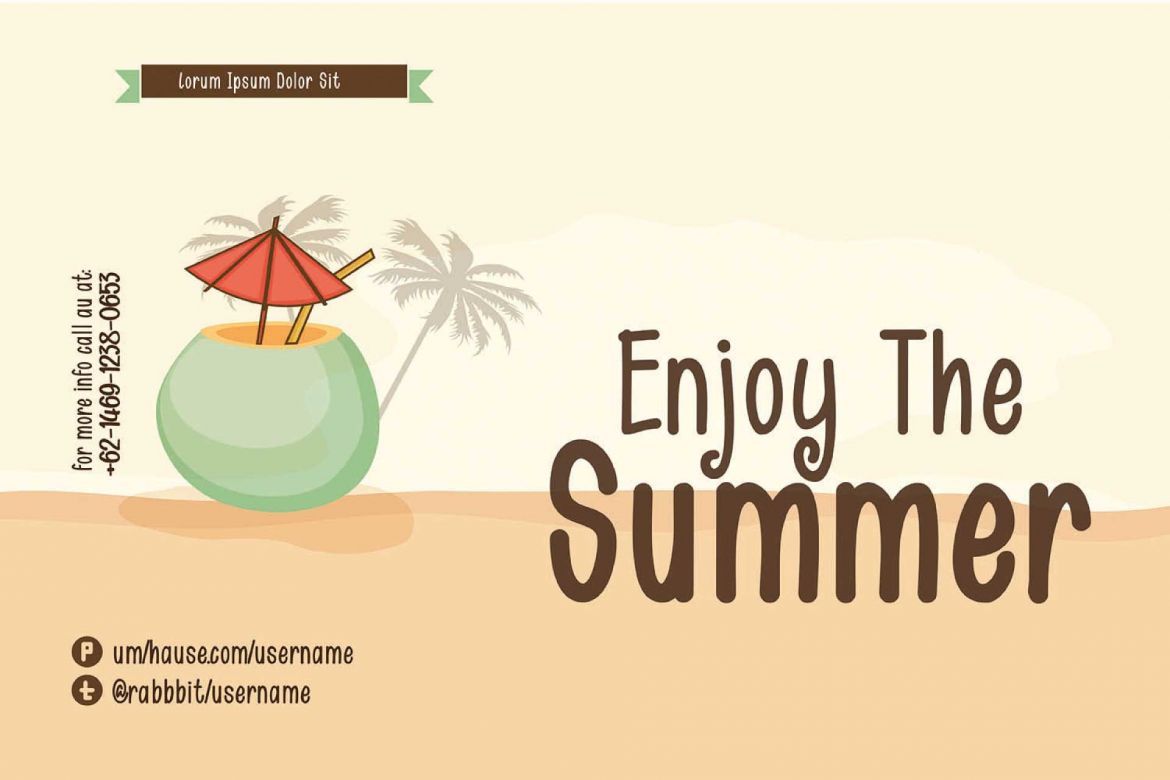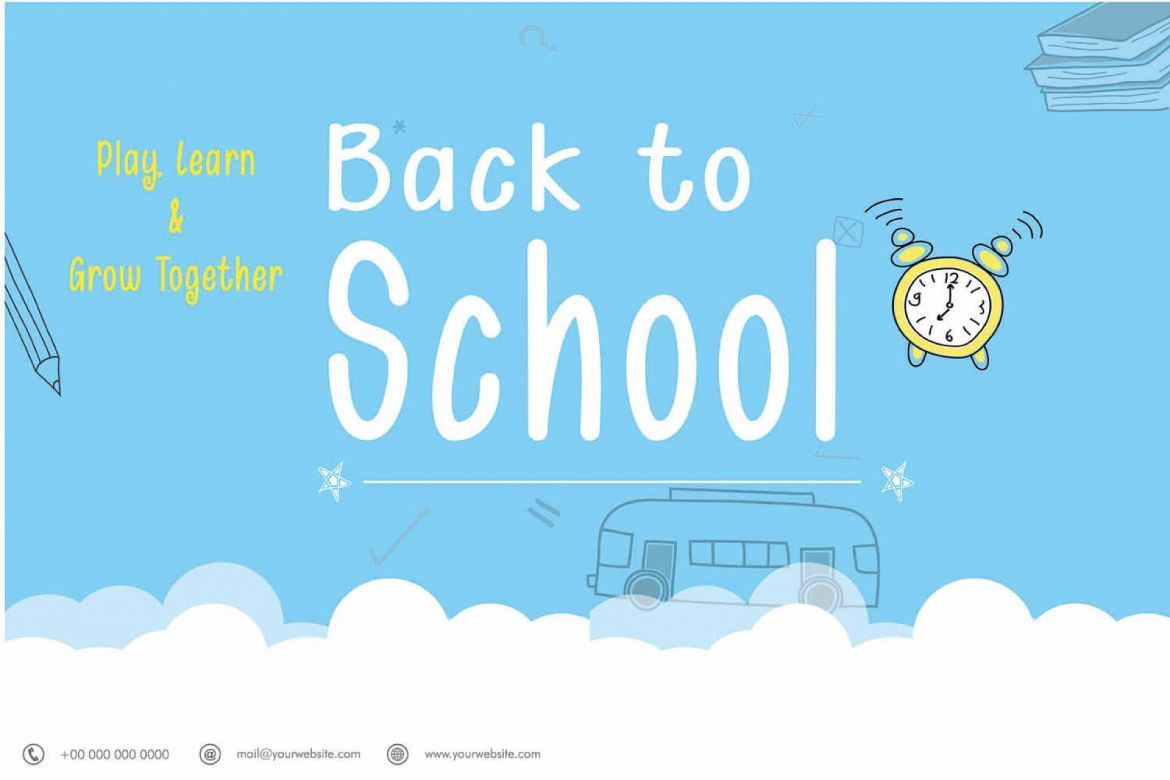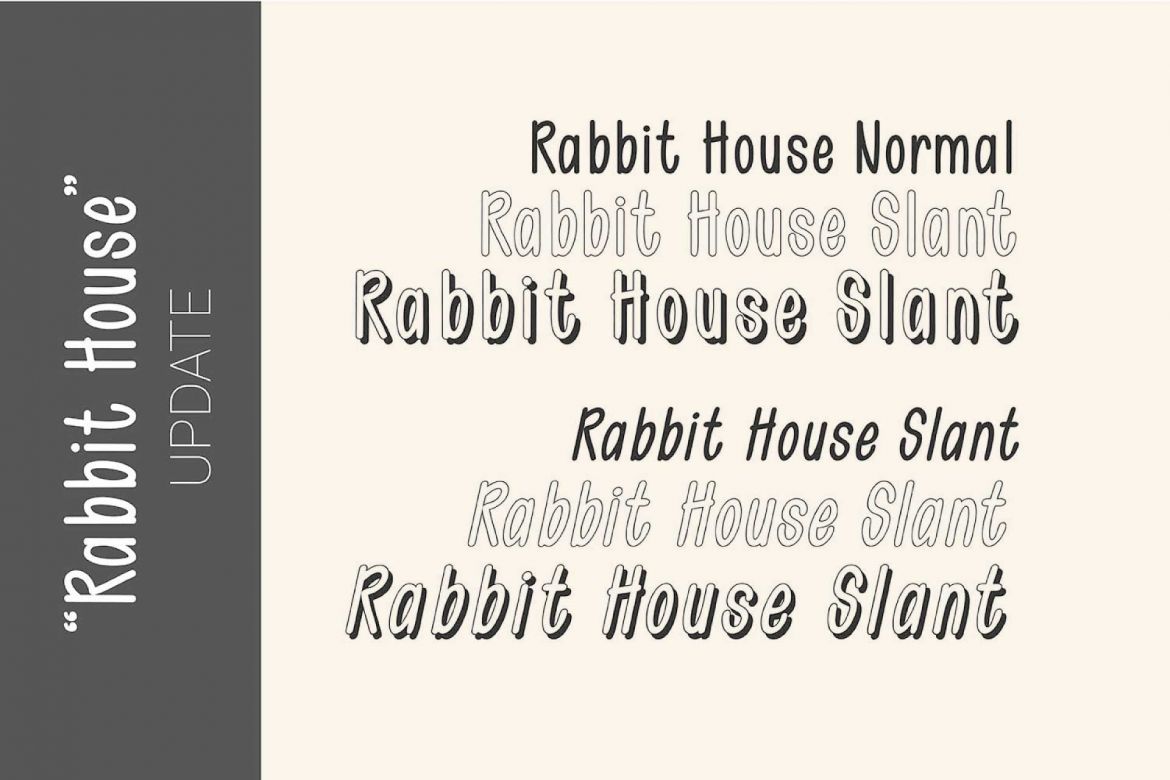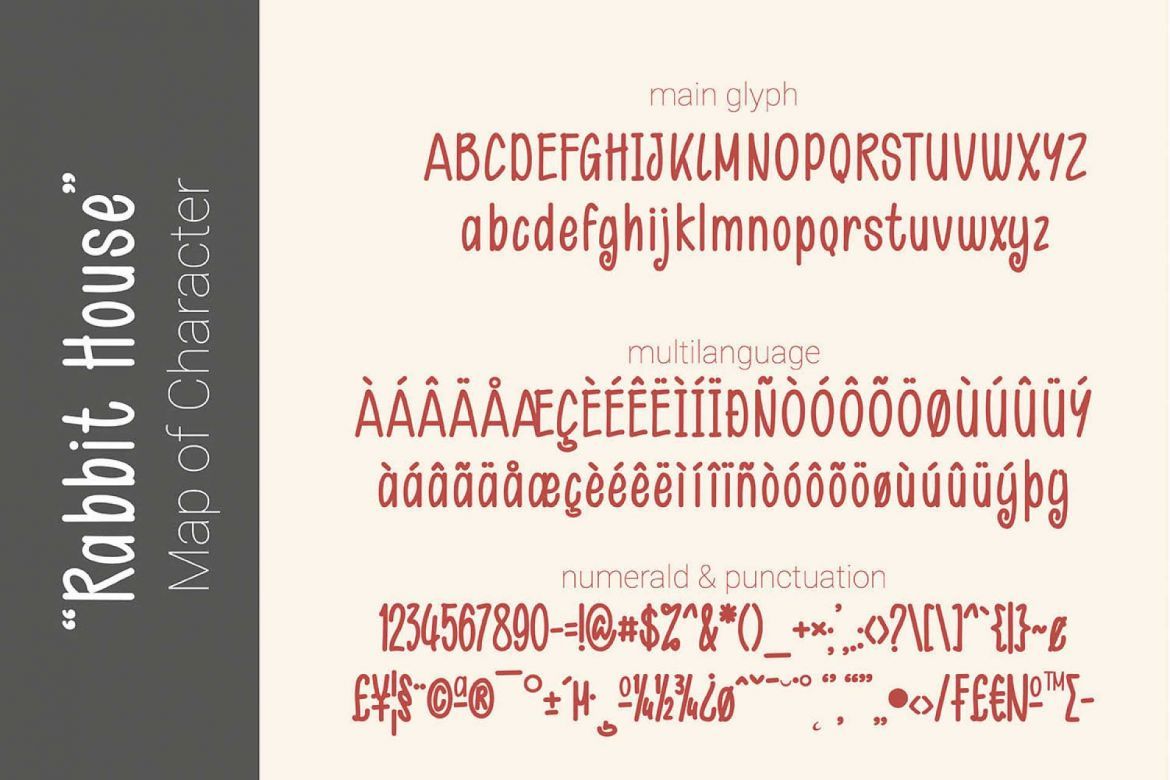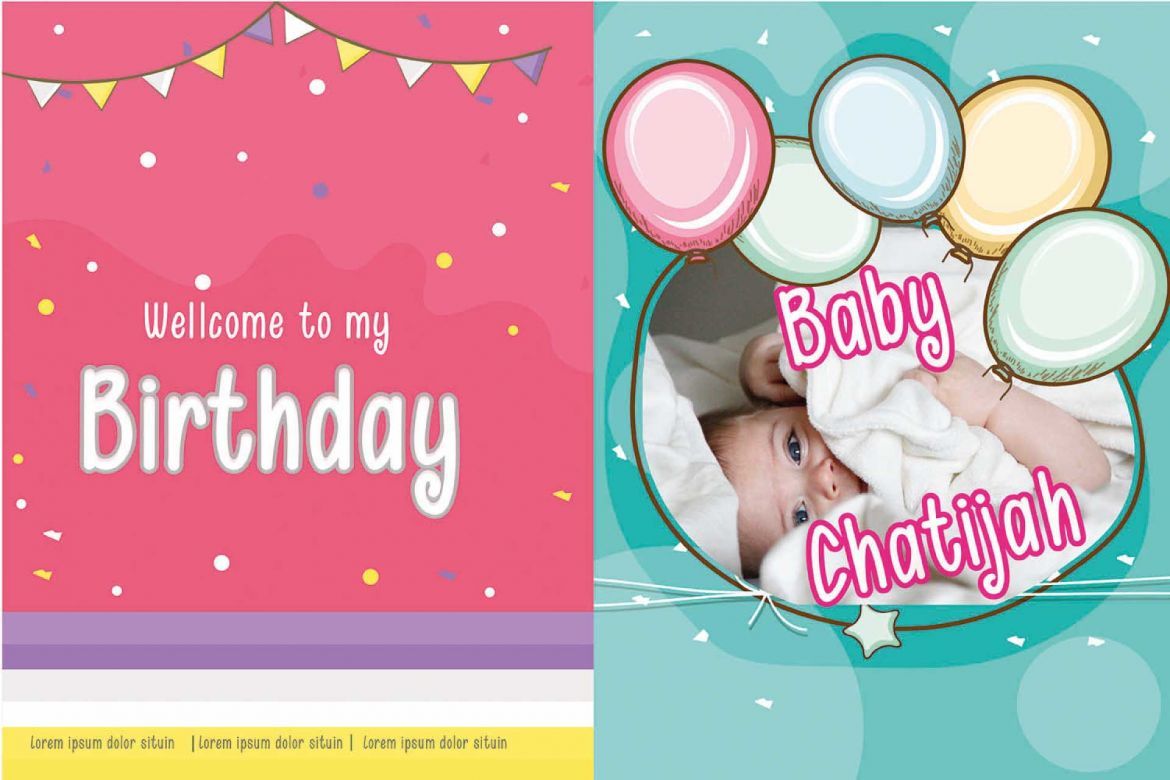
Rabbit House Font Family
The rabbit house is a simple yet strong typeface. It’s extensively edited for super-smooth lines and curves, so it’ll cut easily in your Cricut or Silhouette machine. It has a cute and funky feel which makes it perfect for various designs.
• 6 font style
• craft and brand identity